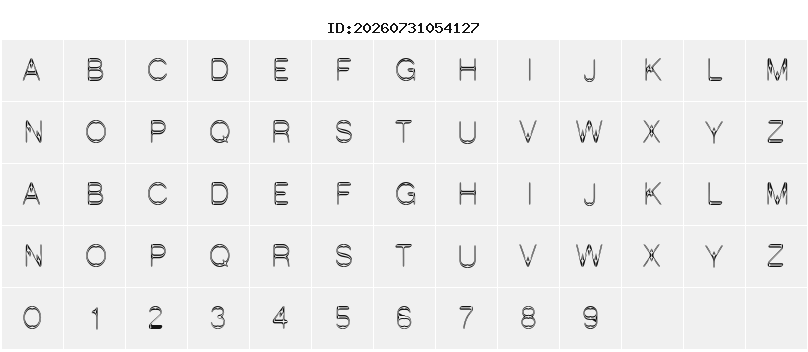
LTStartec Preview
• Font Name: LTStartec
• Full Font Name: Linotype Startec
• Designer: Jan Tomas
About LTStartec.ttf
LTStartec.ttf is a modern, elegant sans-serif font designed for ultimate readability and visual harmony. Perfect for branding, headlines, web design, and print materials.